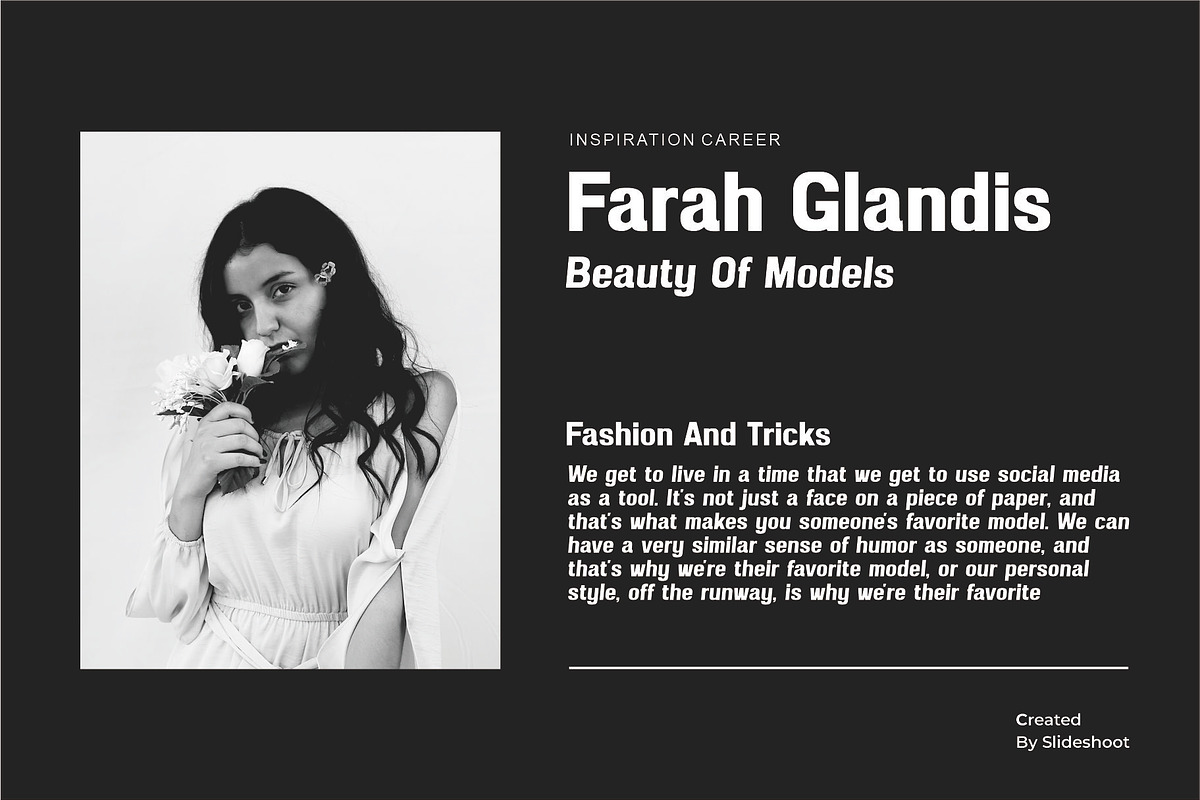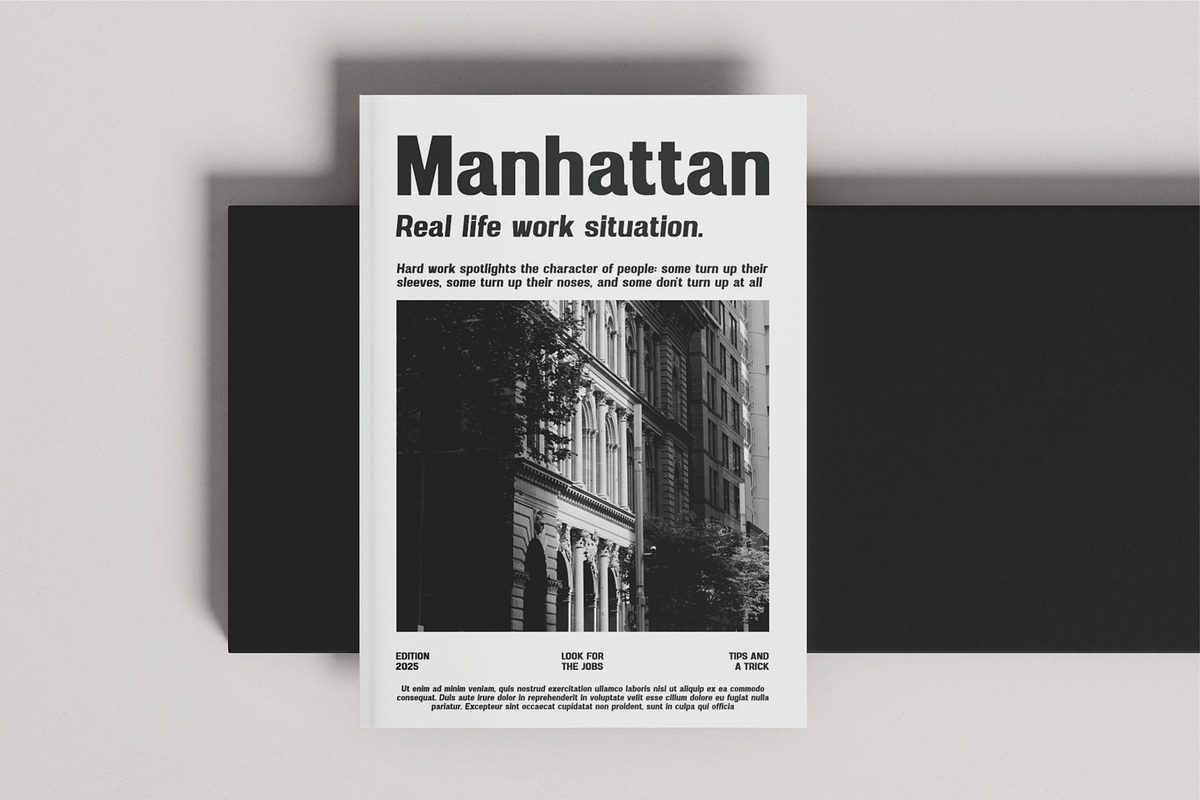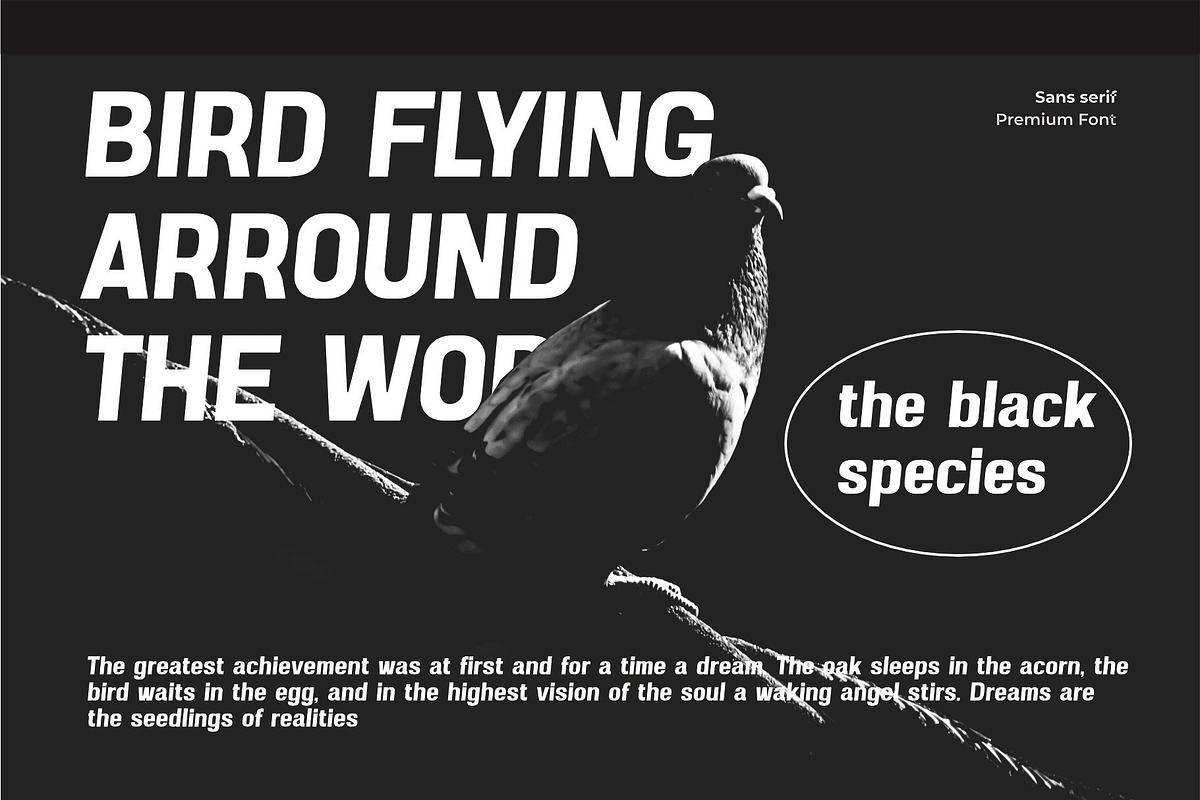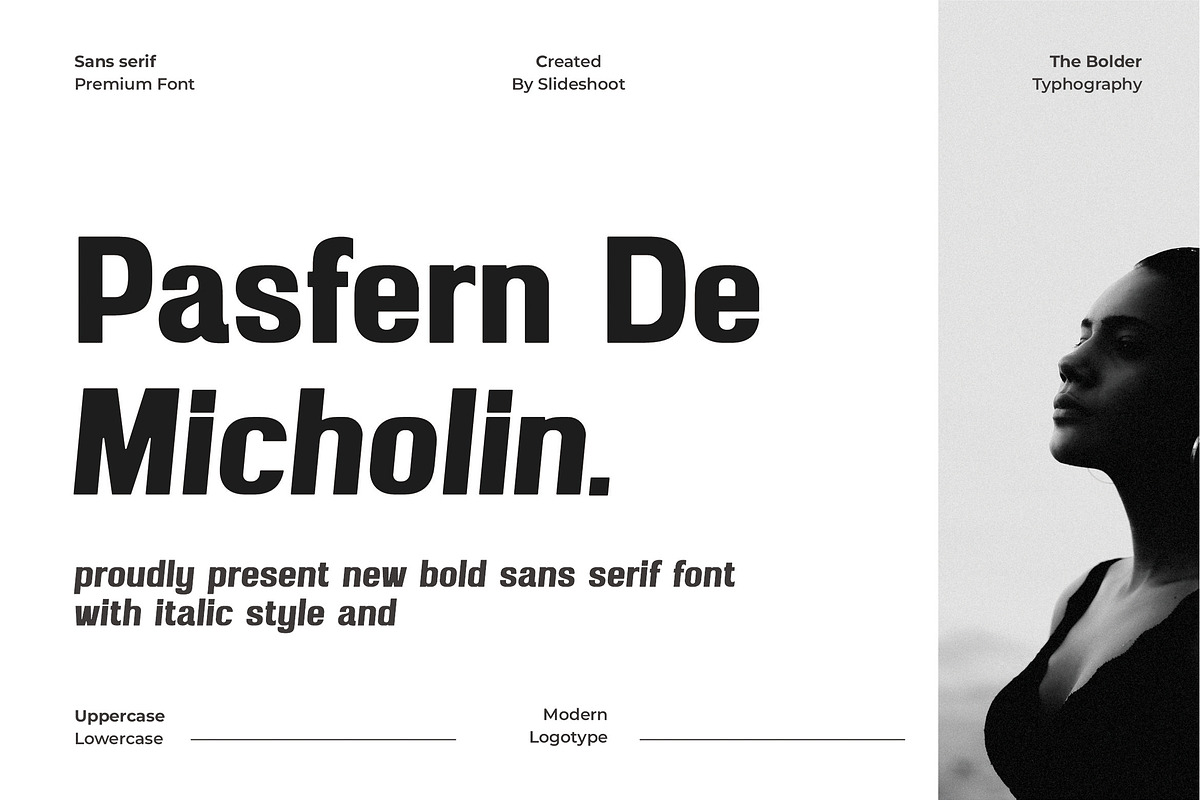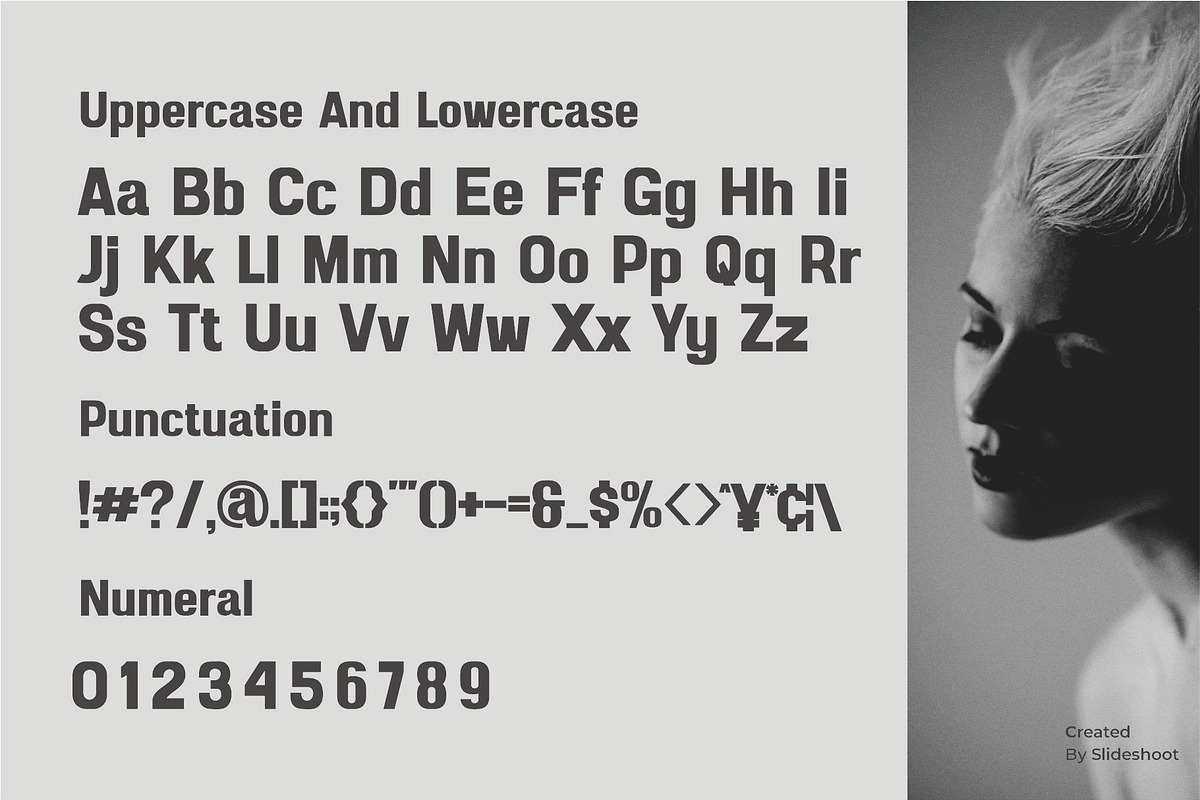
Pasfern De Micholin || Sans Serif
Introducing Pasfern De Micholin is a bold sans serif font with italyc style modern theme, trendy, bouncy and cute display font. It has a unique character with wood theme. It is perfect to be combined with invitation card designs, company logos, movie titles, movie names, business cards, book titles, brand names and various other designs.